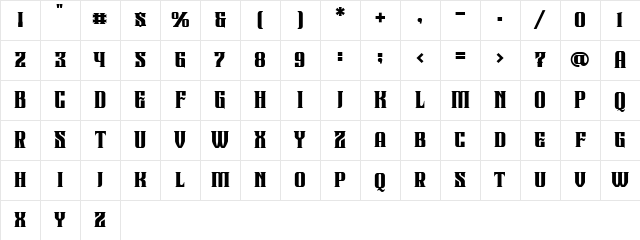
Rock Glader Regular
Foundry: Blankids Studio
Designer: Bangkit Tri Setiadi
Design Context for Rock Glader
Rock Glader is a composed and adaptable typeface that performs quietly and consistently across a wide range of design contexts.